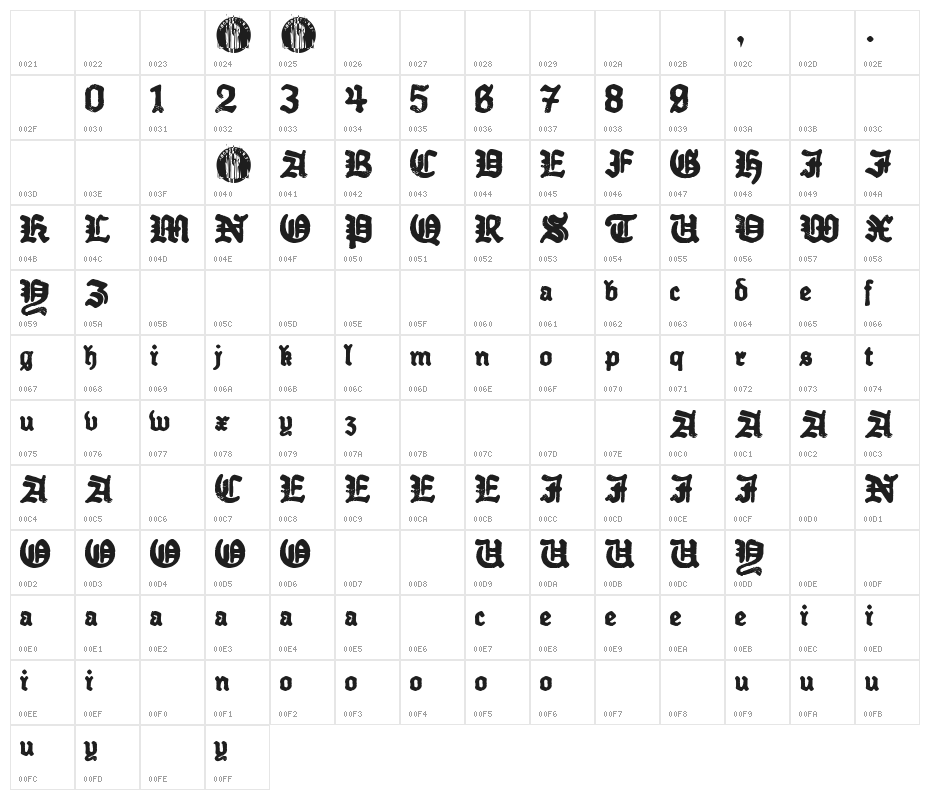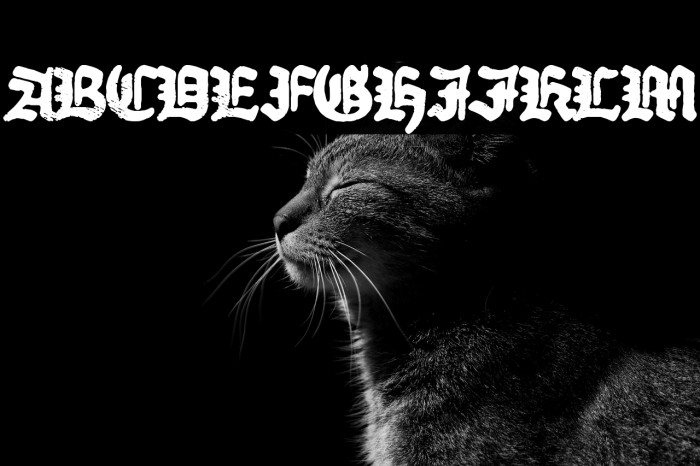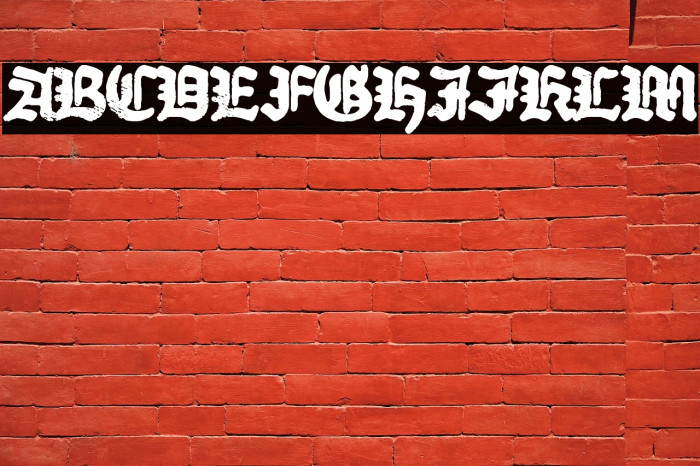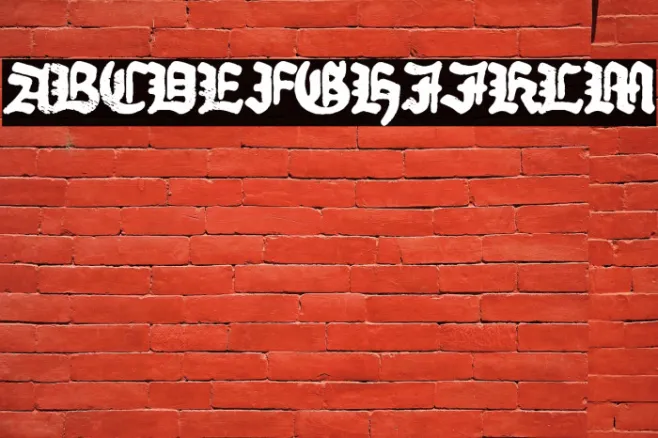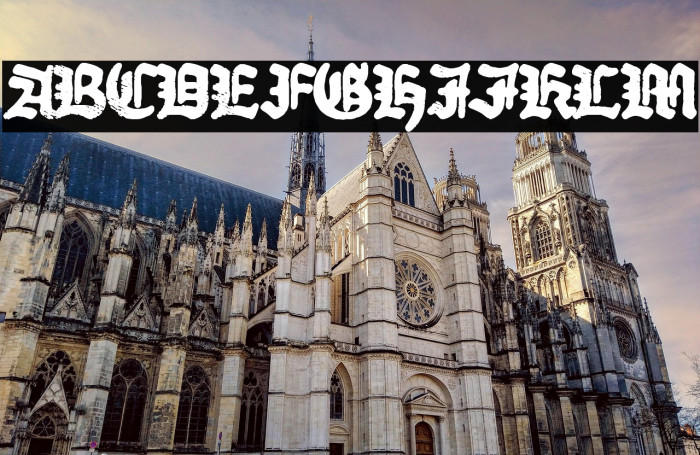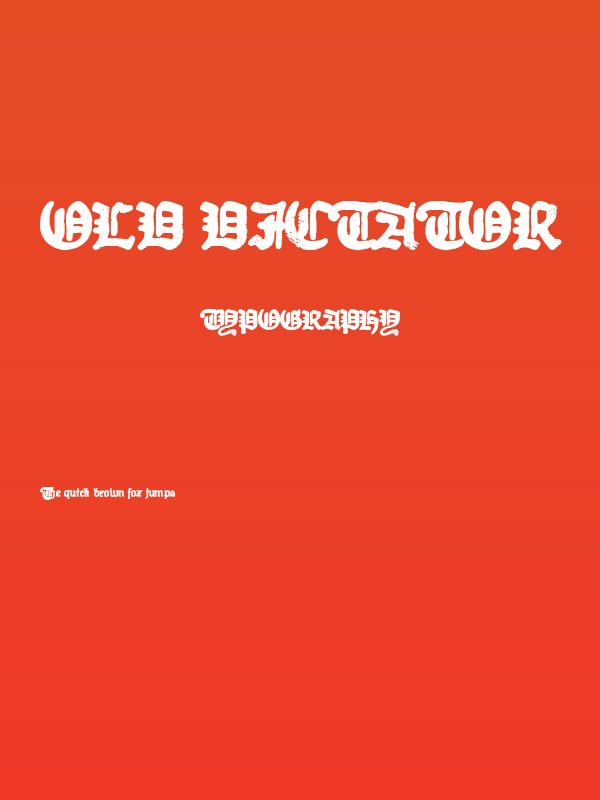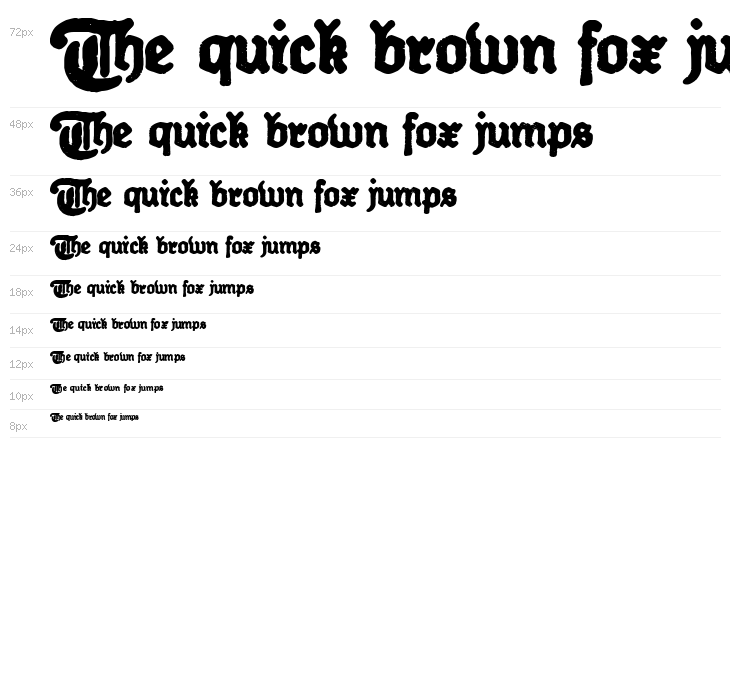
Old Dictator Font
Old Dictator Description
This font features a bold and textured style reminiscent of traditional blackletter typefaces. The characters have a distressed, worn appearance, adding a vintage and rugged feel. The uppercase letters are ornate with sharp edges and intricate details, while the lowercase letters maintain a consistent style with slightly softer curves. The numerals and special characters follow the same aesthetic, ensuring a cohesive look across all elements. This font's unique design makes it stand out, capturing attention with its historical and authoritative presence.
| Proposed Projects | Ideal for projects requiring a historical or gothic touch, such as posters, album covers, or themed event invitations. |